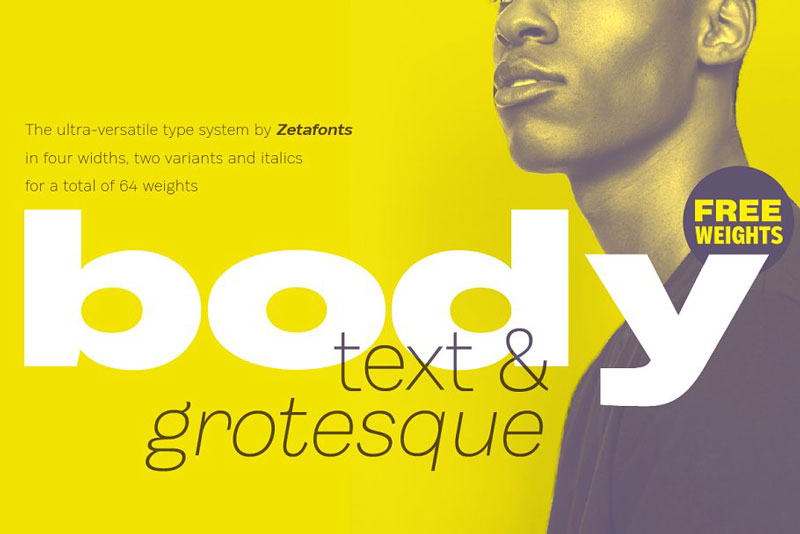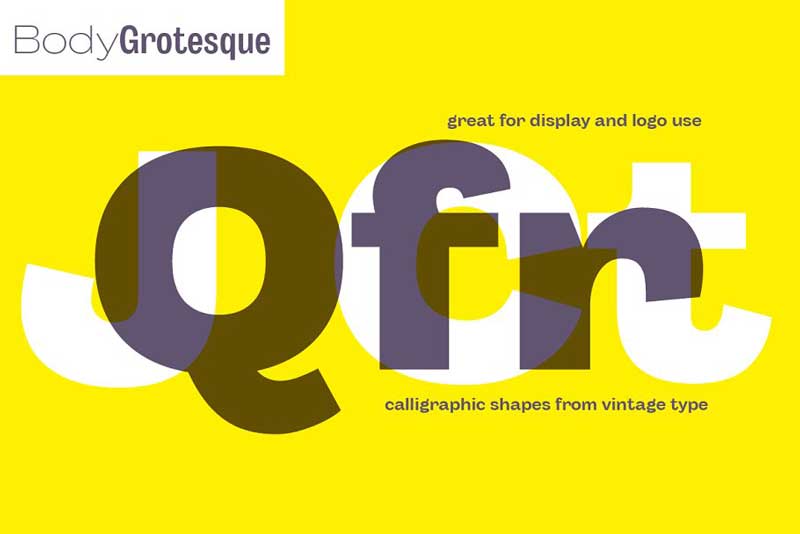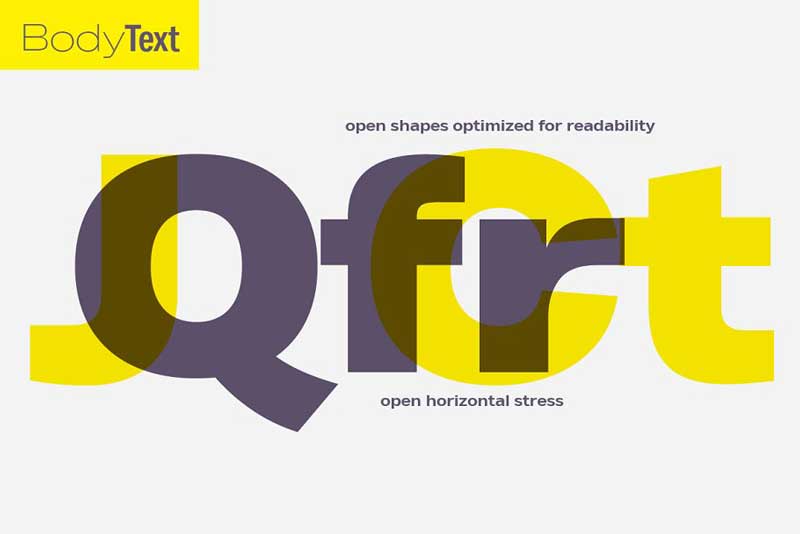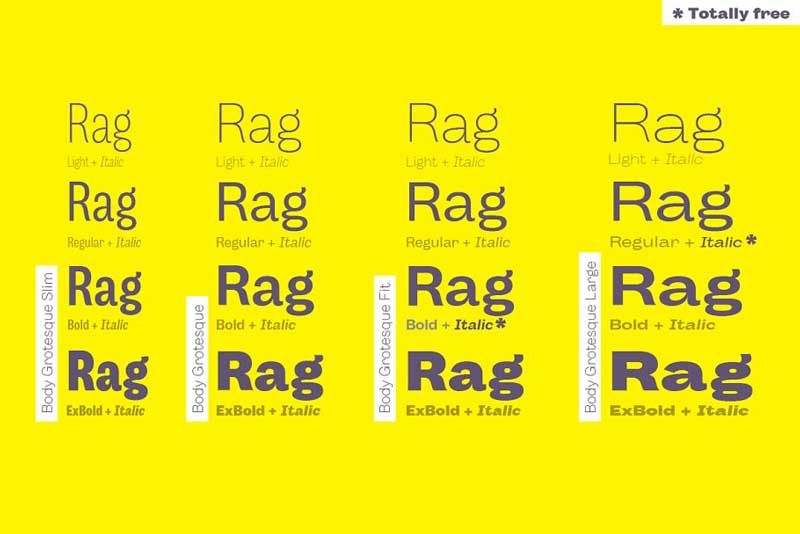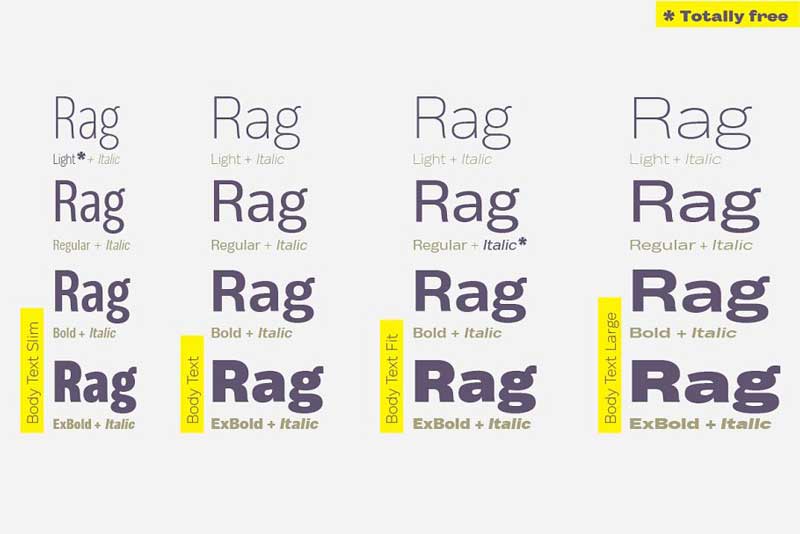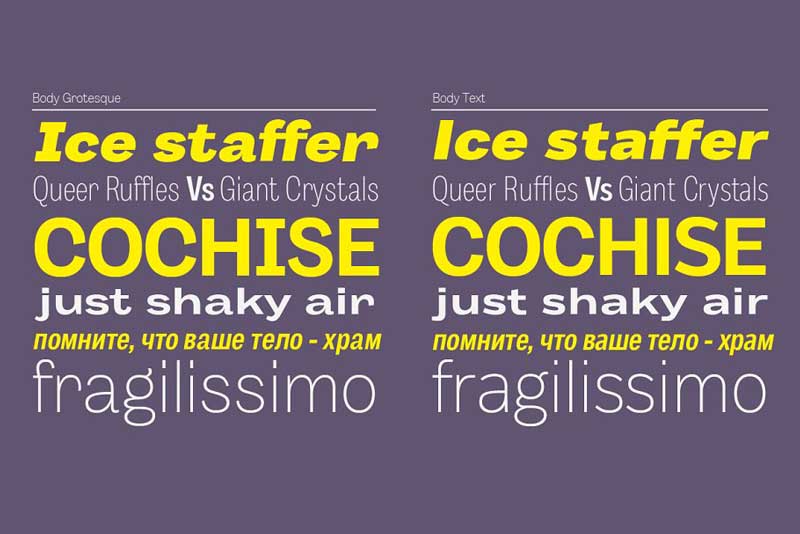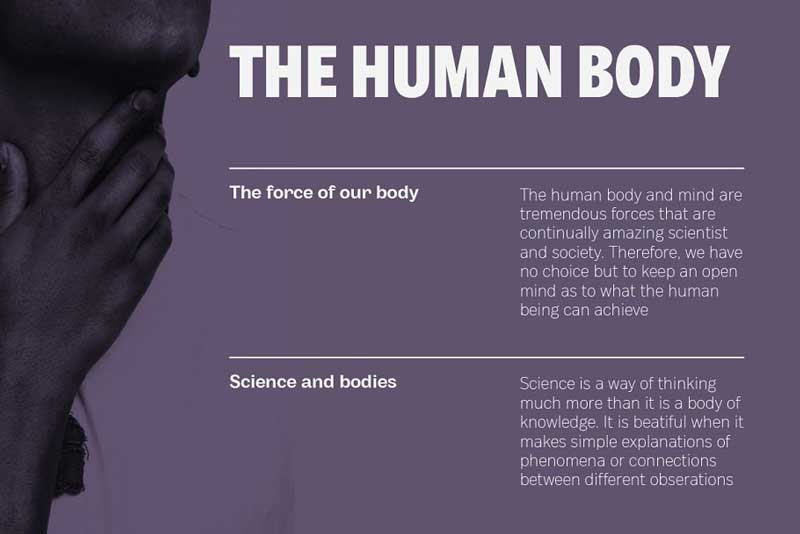
Introducing Creativemarket Body – 64 fonts 3079048. The body is a type family designed for Zetafonts by Cosimo Lorenzo Pancini with Andrea Tartarelli. Conceived as a contemporary alternative to modernist superfamilies like Univers or Helvetica, Body tries to maximize text readability while providing a wide range of options for the designer. It comes in two variants (Body Text and Body Grotesque), each in four widths and four weights: regular and bold for basic typesetting, light and extra bold for display use.
All the 64 fonts in the Body superfamily include a complete Latin extended character set with small caps for over seventy languages, Russian Cyrillic, open type positional numbers, stylist sets, and alternate forms.